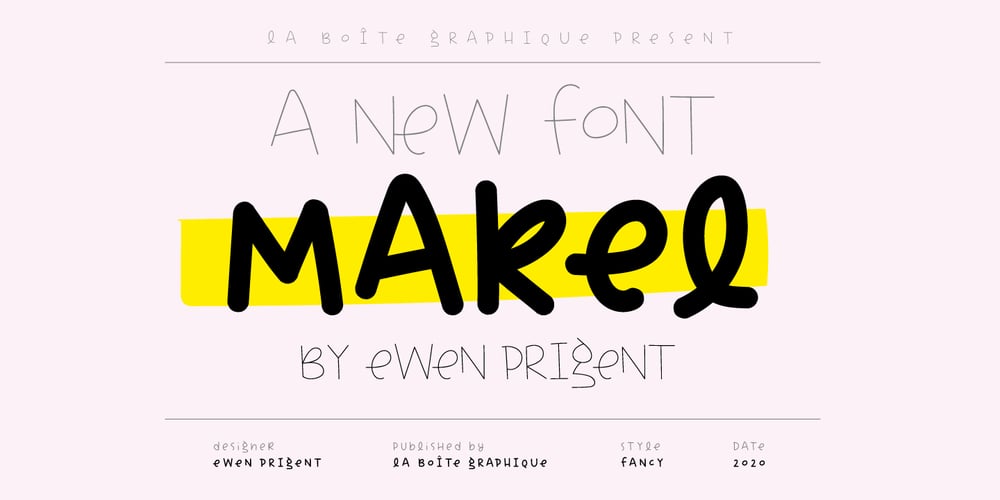
Makel
Makel font
Makel Font Family was designed by Ewen Prigent and published by La Boîte Graphique. Makel contains 5 styles and family package options. Makel is a fanciful typography. Ideal for areas such as food, catering, packaging, youth publishing …Thanks to its curves and the movement of letters, Makel wishes to bring good humor and dynamism to your communication media.